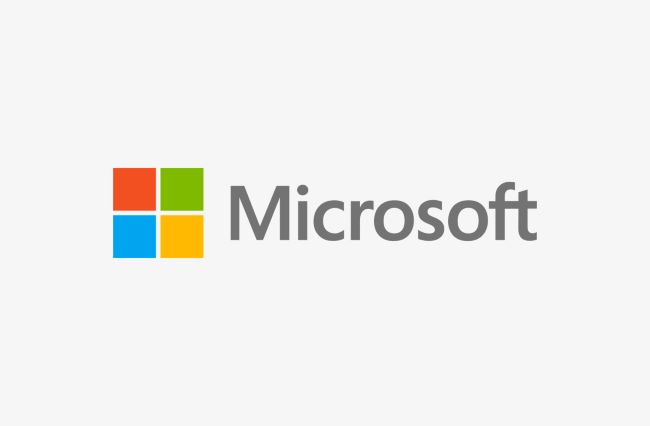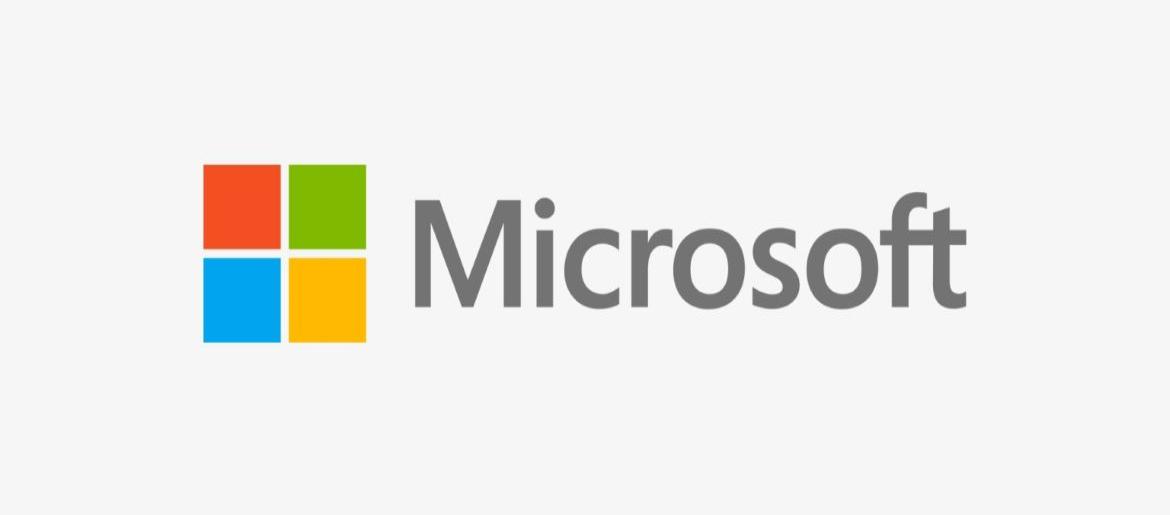
Microsoft Font
Microsoft Font powers the digital workplace through meticulously engineered letterforms optimized for pixel-perfect screen rendering. This typography represents corporate computing’s evolution—Segoe UI’s humanist sans-serif construction balancing technical precision with approachable warmth, proving enterprise design needn’t sacrifice personality for functionality across billions of devices worldwide.
The main typeface used by Microsoft is Segoe UI, designed specifically for digital interfaces requiring exceptional legibility at any size. Its clean geometry and subtle curves create professional consistency while maintaining enough character to avoid sterile coldness—rare achievement in system fonts.
Microsoft Font dominates business presentations, enterprise software, productivity apps, and corporate communications. Its universal recognition makes it invisible yet essential, like oxygen for digital workflows.
This typography demonstrates that ubiquity through excellence beats novelty—Segoe UI’s enduring relevance proves thoughtful, versatile design outlasts trends, becoming infrastructure rather than decoration in our connected lives.